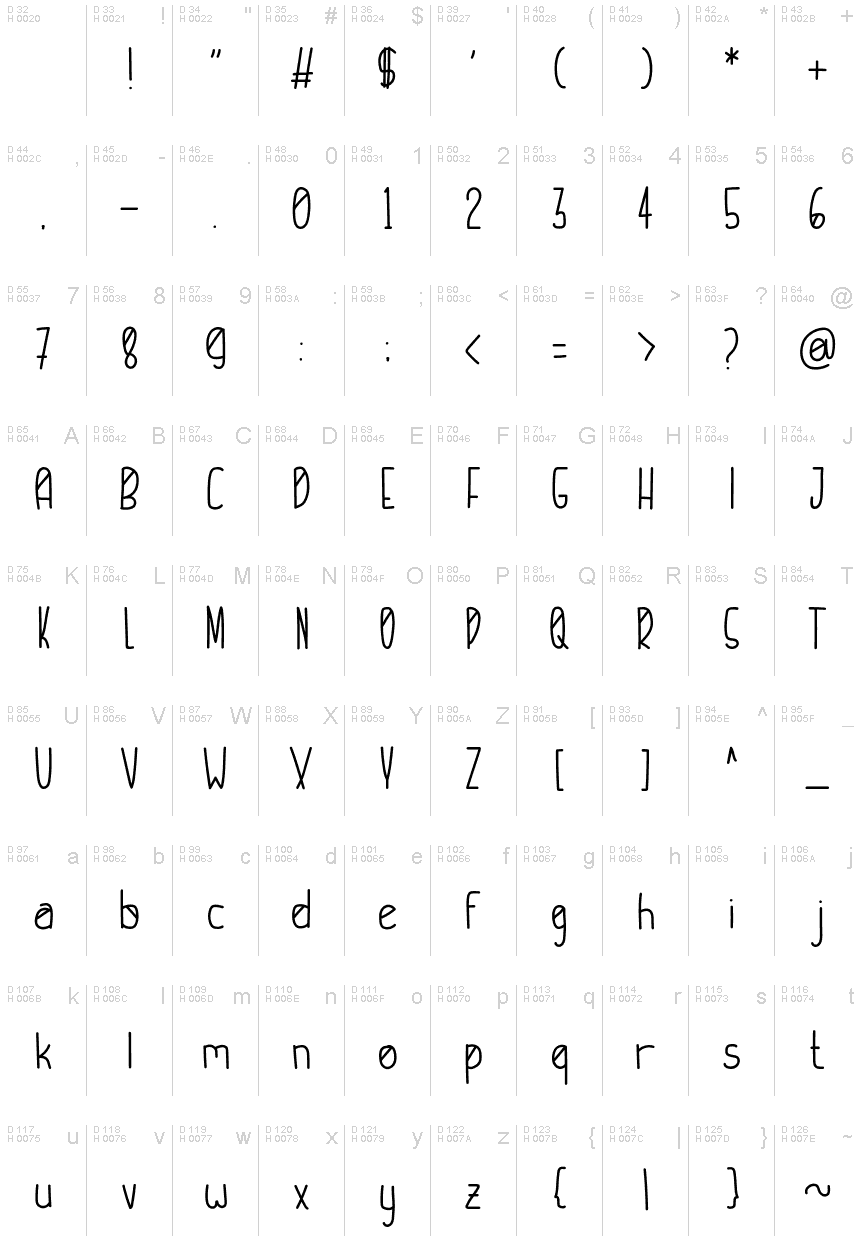
HAPPY BRO
If you're in search of a playful and charming font, look no further than HAPPY BRO. Created by the talented Hamsah, this handwritten typeface exudes a lighthearted and friendly vibe that's perfect for a range of projects. Its light weight and extra-condensed width make it ideal for use in titles, headlines, logos, and branding materials. Whether you're designing a children's book cover or creating social media graphics for a fun-loving brand, HAPPY BRO is sure to bring joy and personality to any project. So go ahead and let your creativity soar with this delightful typeface!